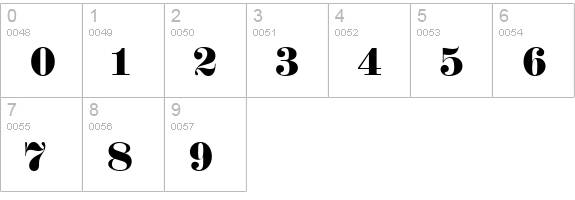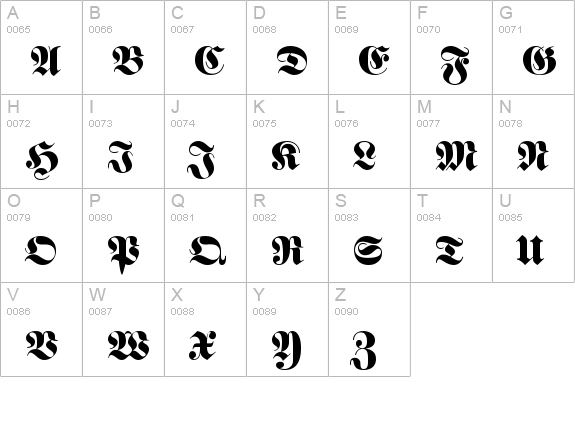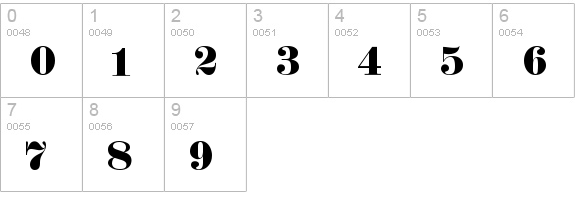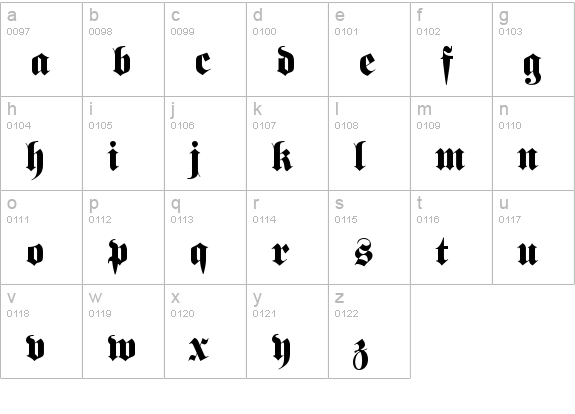
TR Frankenstein Plain Font Details
Introducing TR Frankenstein Plain font - a versatile and modern typeface that is perfect for all your design needs. This unique font features clean lines and a timeless aesthetic, making it suitable for a wide range of projects. TR Frankenstein Plain font is free to download and use, making it accessible to everyone looking to add a touch of sophistication to their designs. Whether you're working on a branding project, website design, or any other creative endeavor, this font is sure to impress. Don't miss out on this amazing opportunity to elevate your work with TR Frankenstein Plain font - download it for free today at FontsMarket.com!